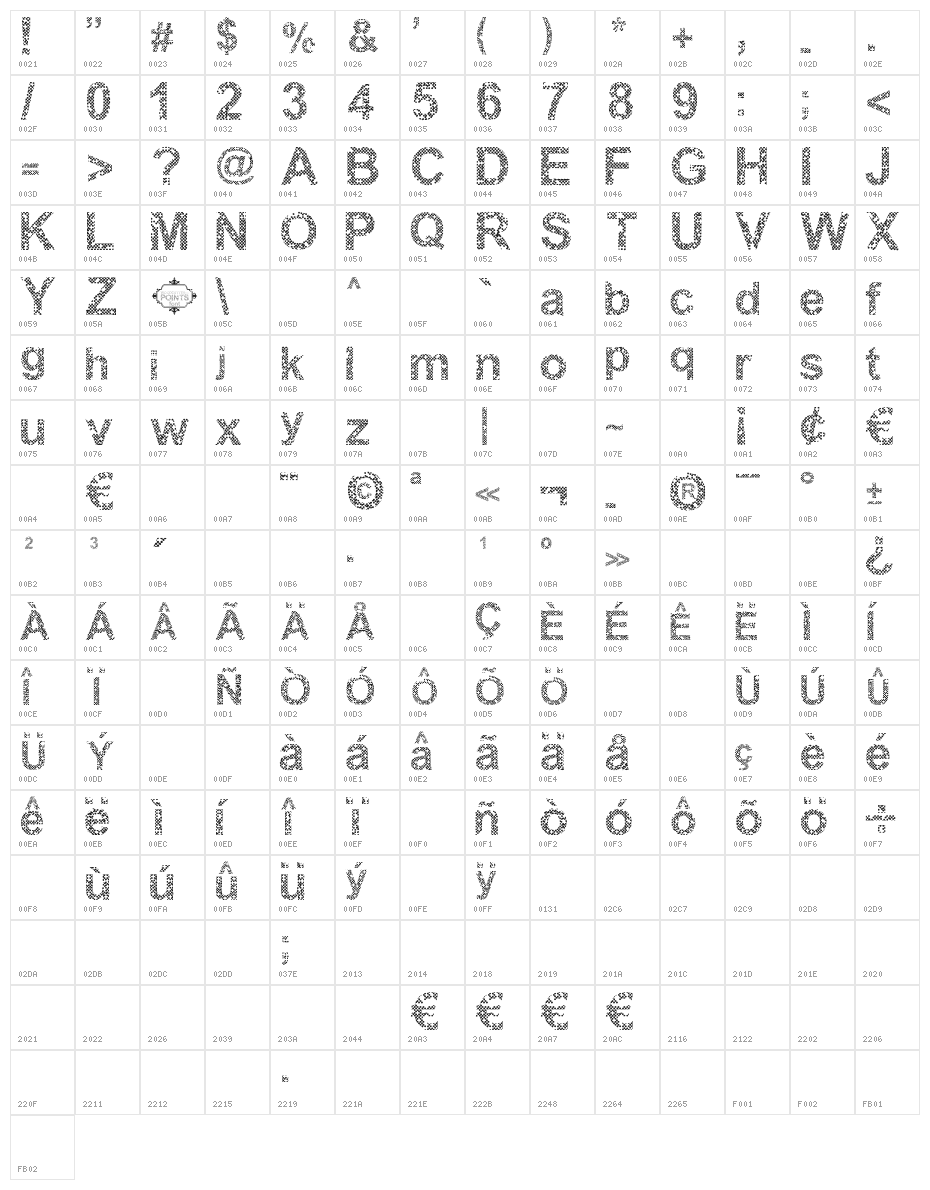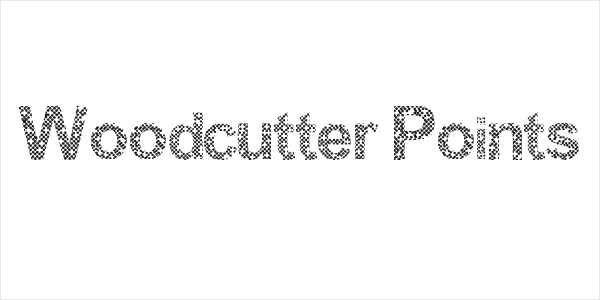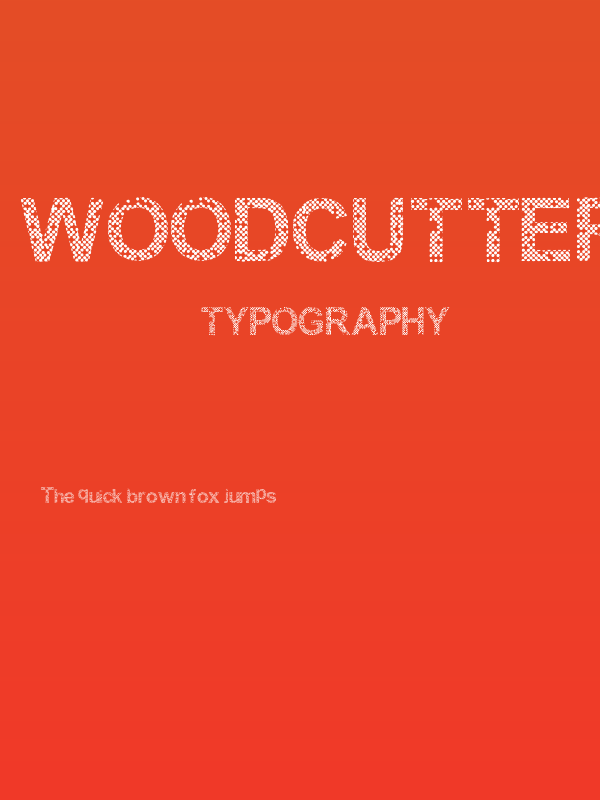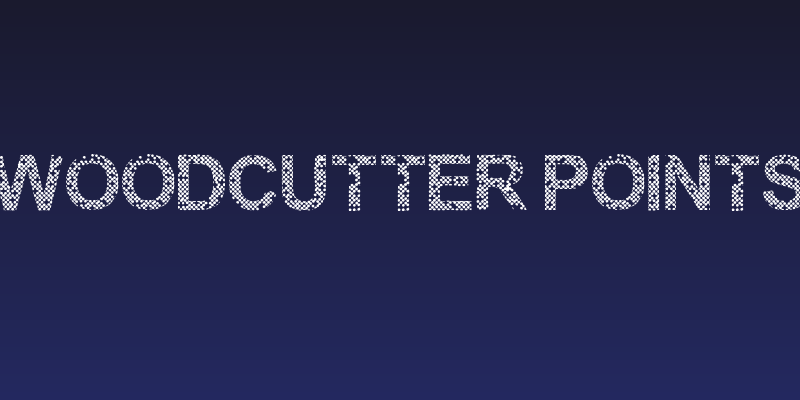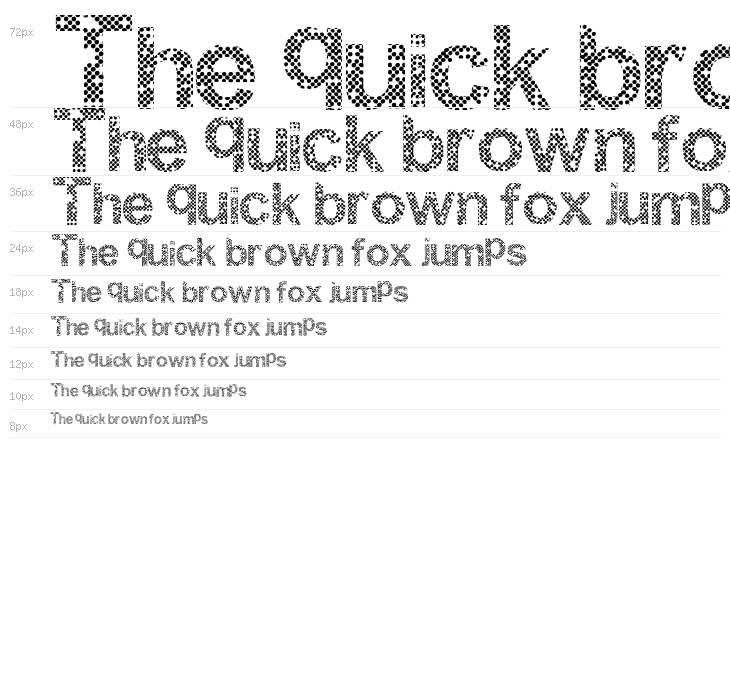
Woodcutter Points Font
Woodcutter Points Description
This font features a distinctive dotted pattern that creates a textured appearance, making it stand out in any design. The characters are bold and have a strong presence, with a modern and playful style. The uppercase and lowercase letters are well-proportioned, and the numbers are clear and easy to read. The special characters maintain the same dotted style, ensuring consistency throughout. This font is ideal for projects that require a unique and eye-catching look, such as posters, headlines, and branding materials.
Proposed ProjectsIdeal for posters, headlines, branding materials, and any design needing a unique, eye-catching look.